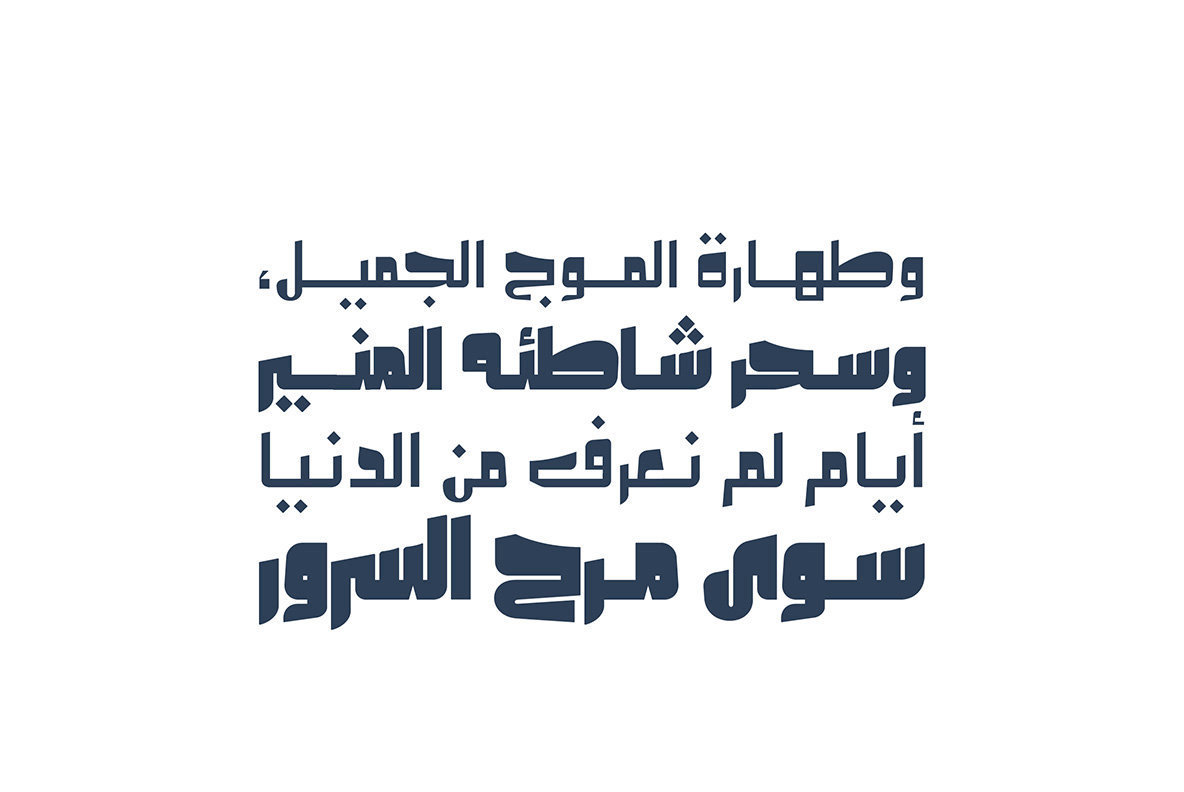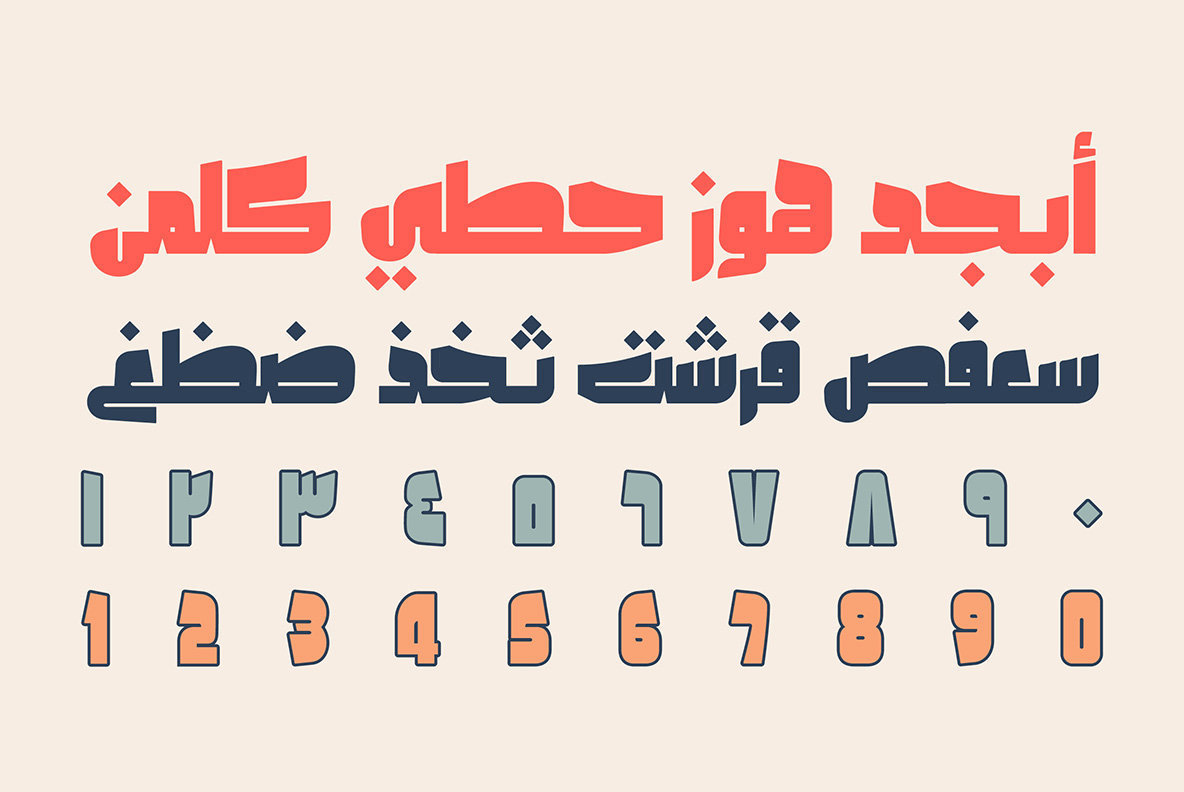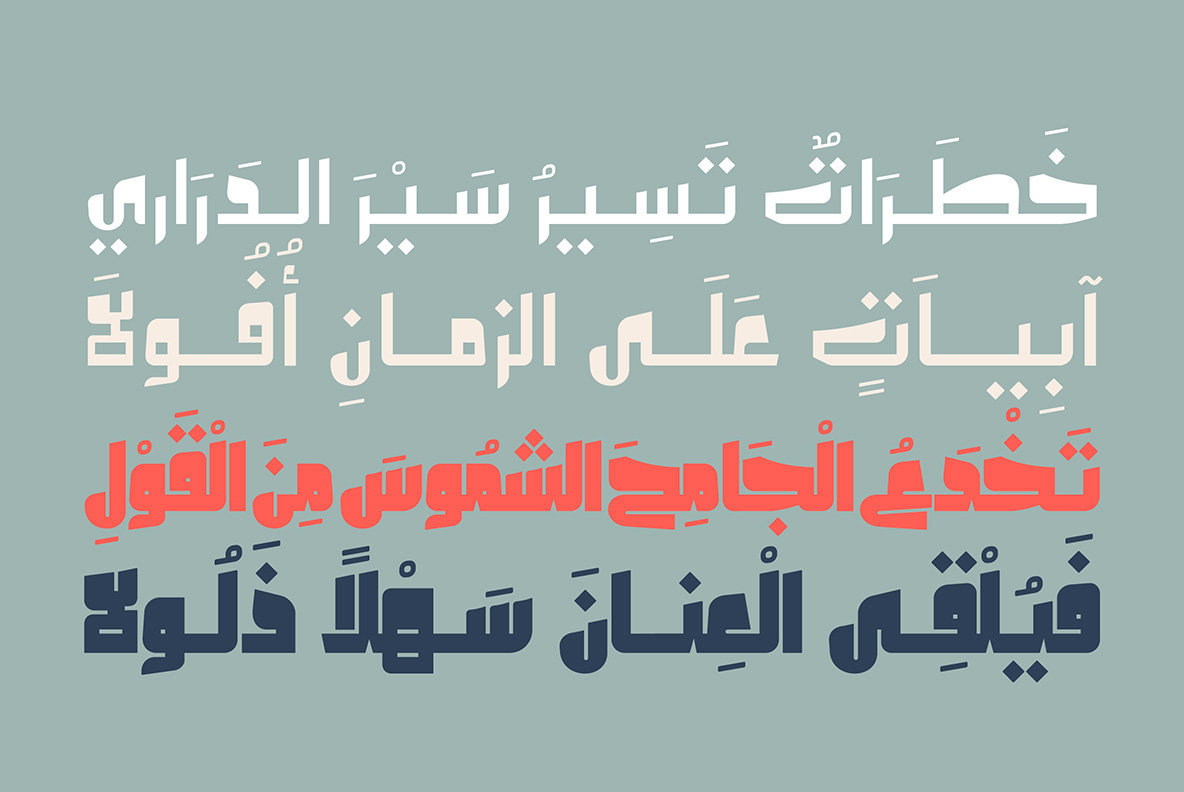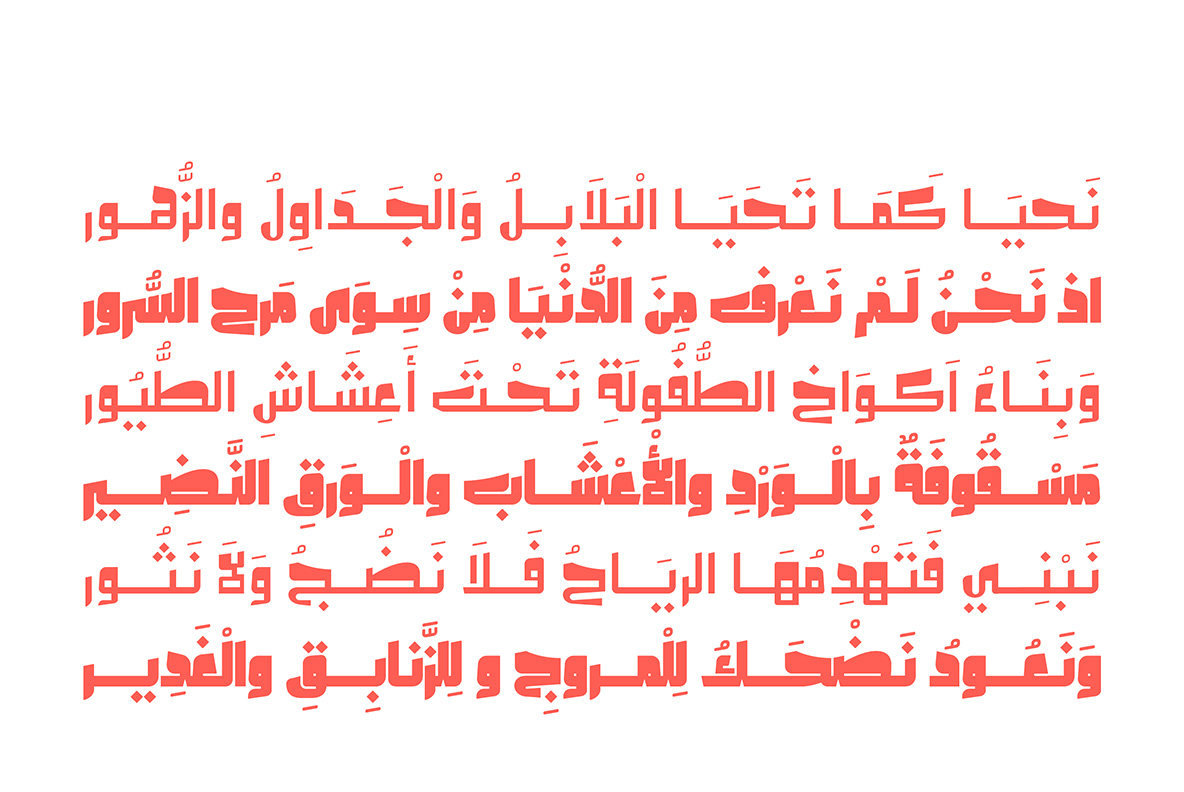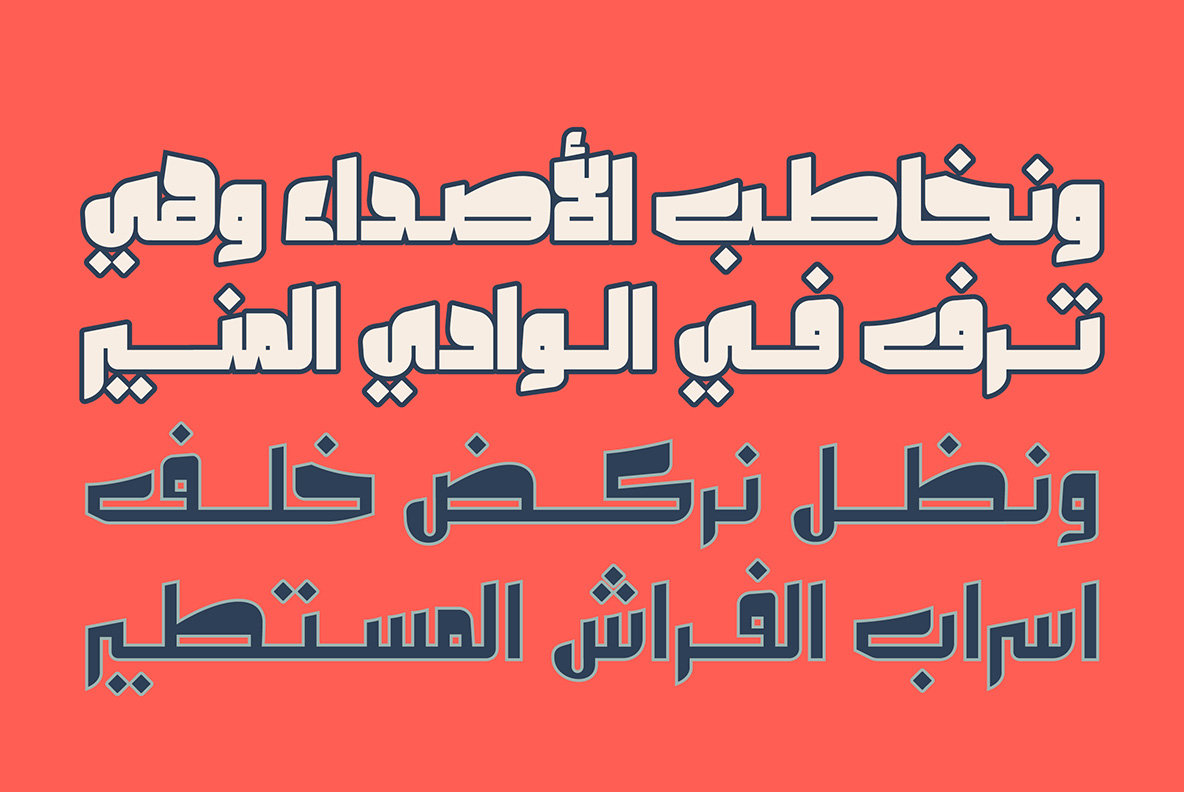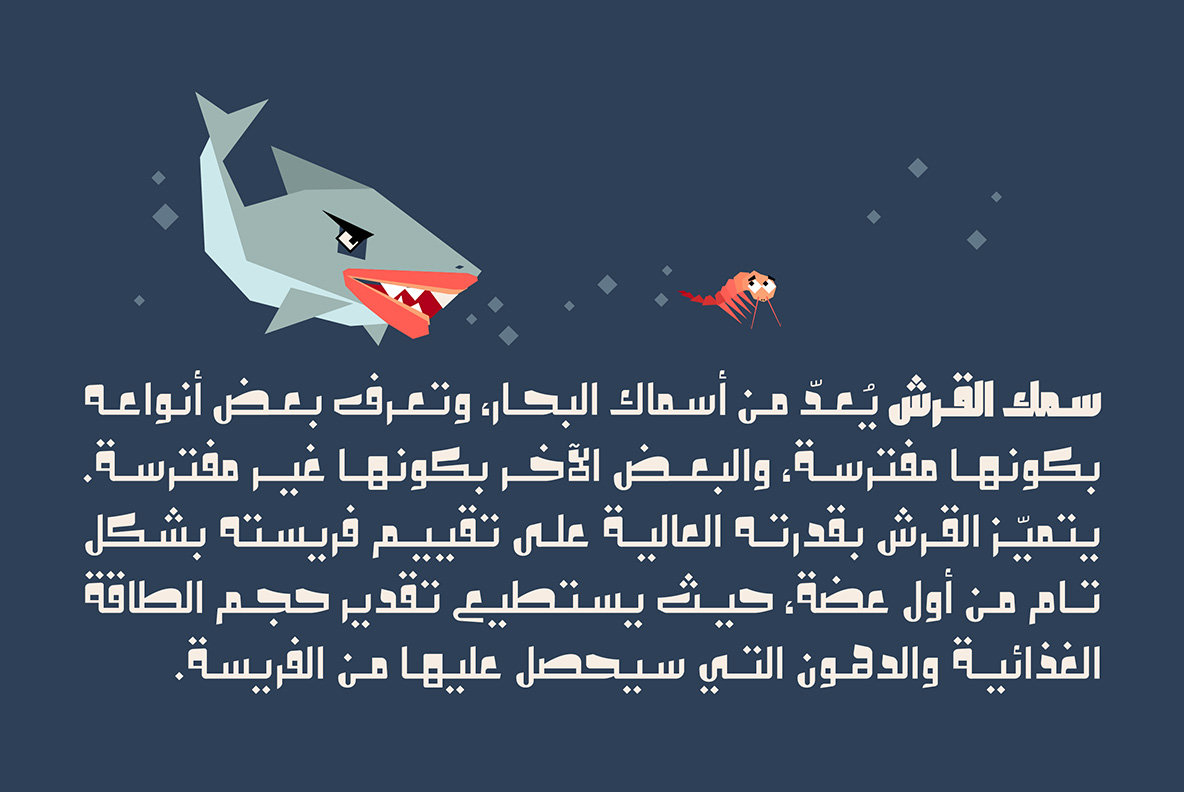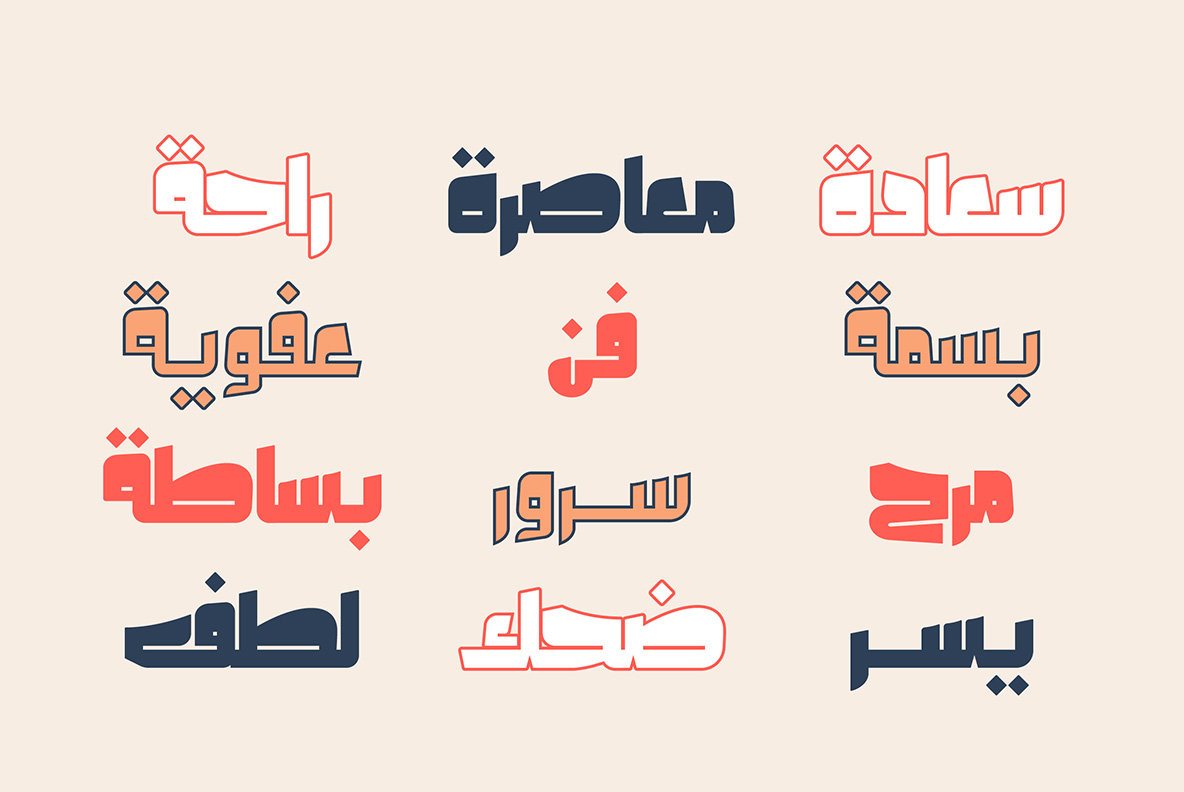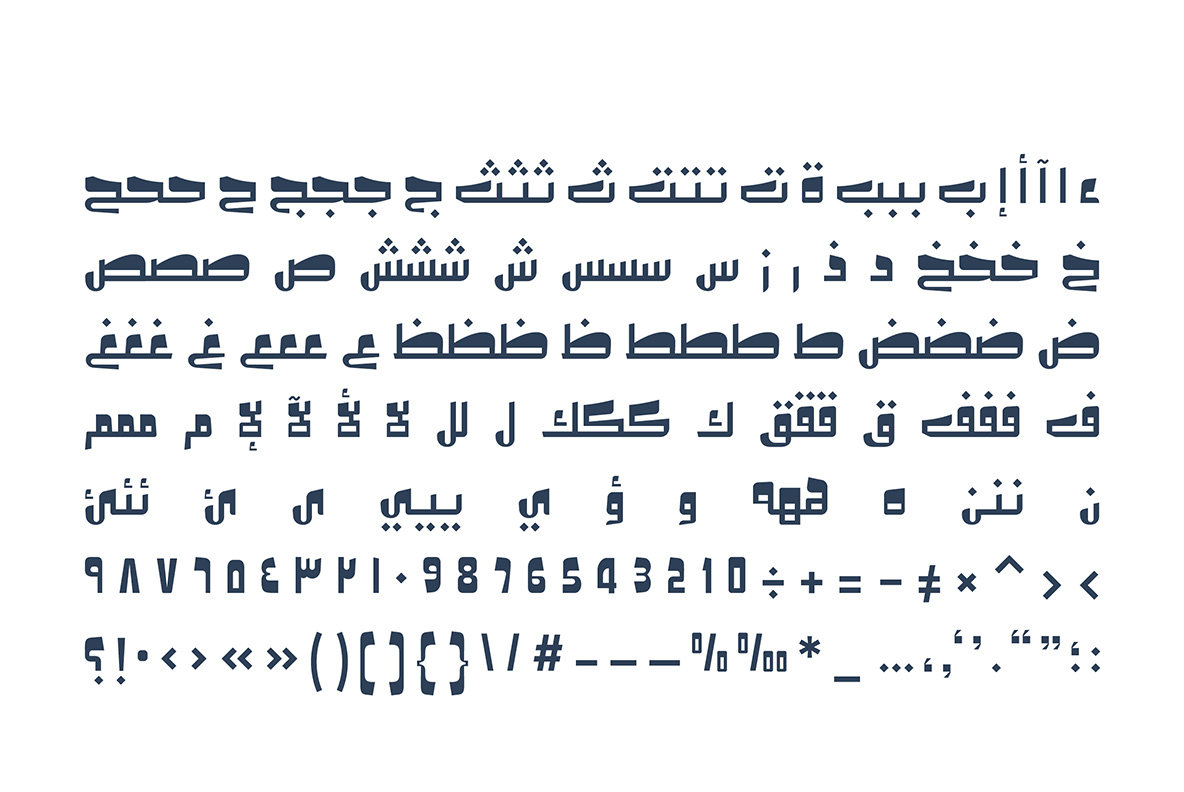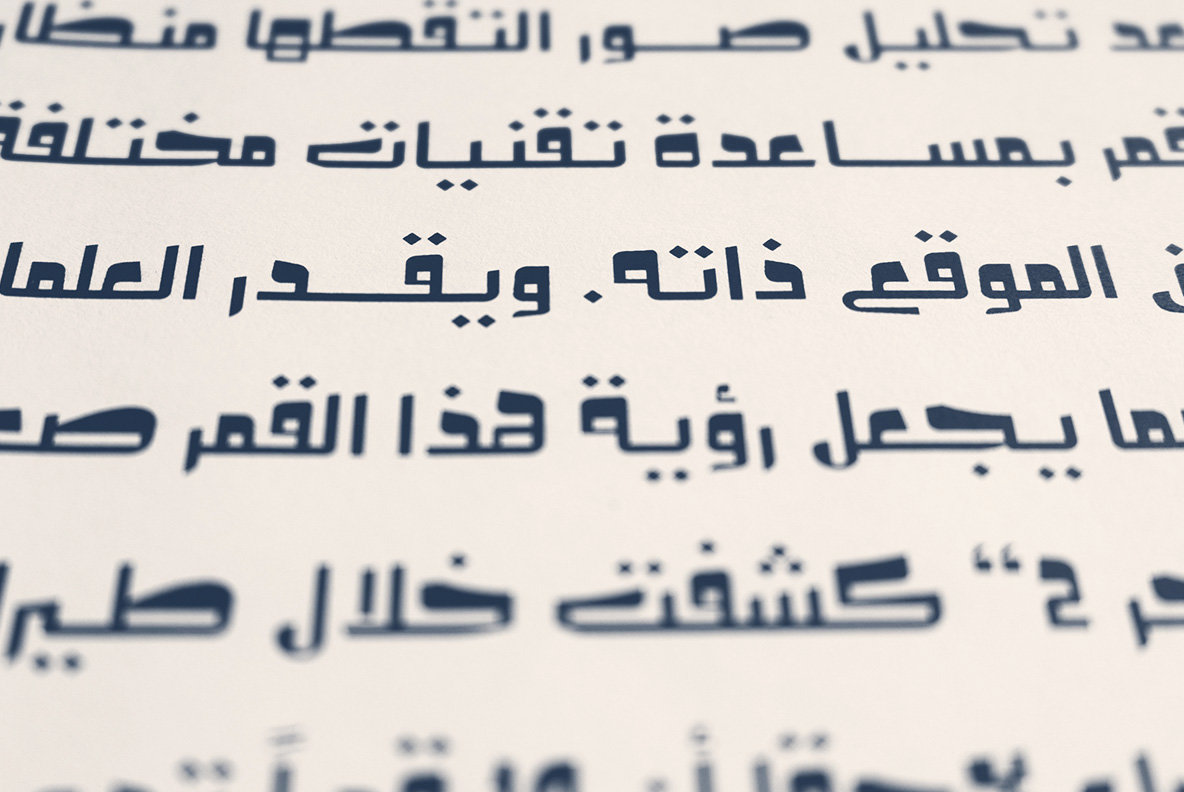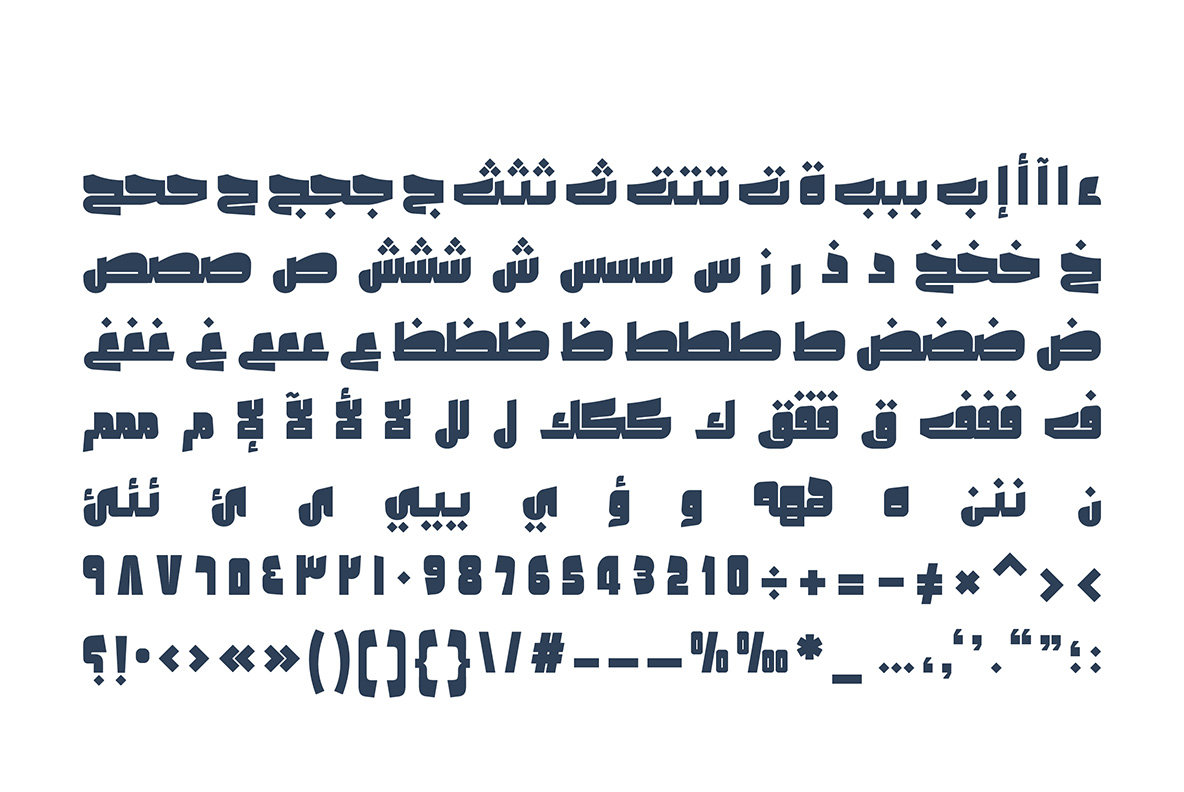
Olfah 1
Olfah is an Arabic display font that features a friendly look with its casual style. The font suits advertising, infographics, web, print and creative headings. Olfah consists of two weights: Bold and Regular